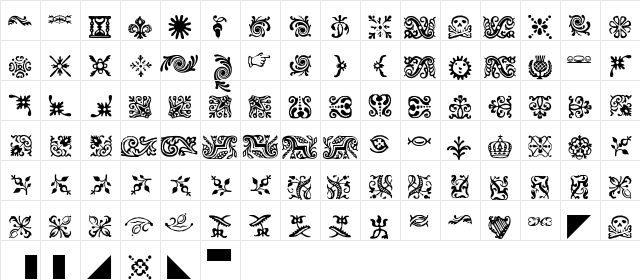
FCaslonOrnamentsITC Medium
Design Context for FCaslonOrnamentsITC Typeface
FCaslonOrnamentsITC is built around its visual character rather than neutral utility — its distinctive forms are designed to make an impression at display sizes.
Font Pairing: Pair with a clean neutral sans-serif for body copy to let FCaslonOrnamentsITC's character lead without overwhelming the composition.
Pro Tip: Use FCaslonOrnamentsITC exclusively at display sizes — it was designed to be seen, not read at length. Let a neutral companion handle body copy.